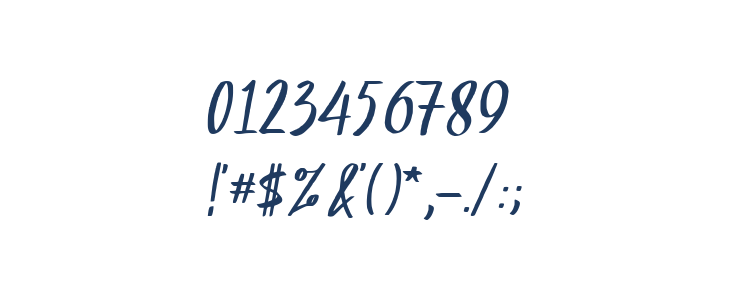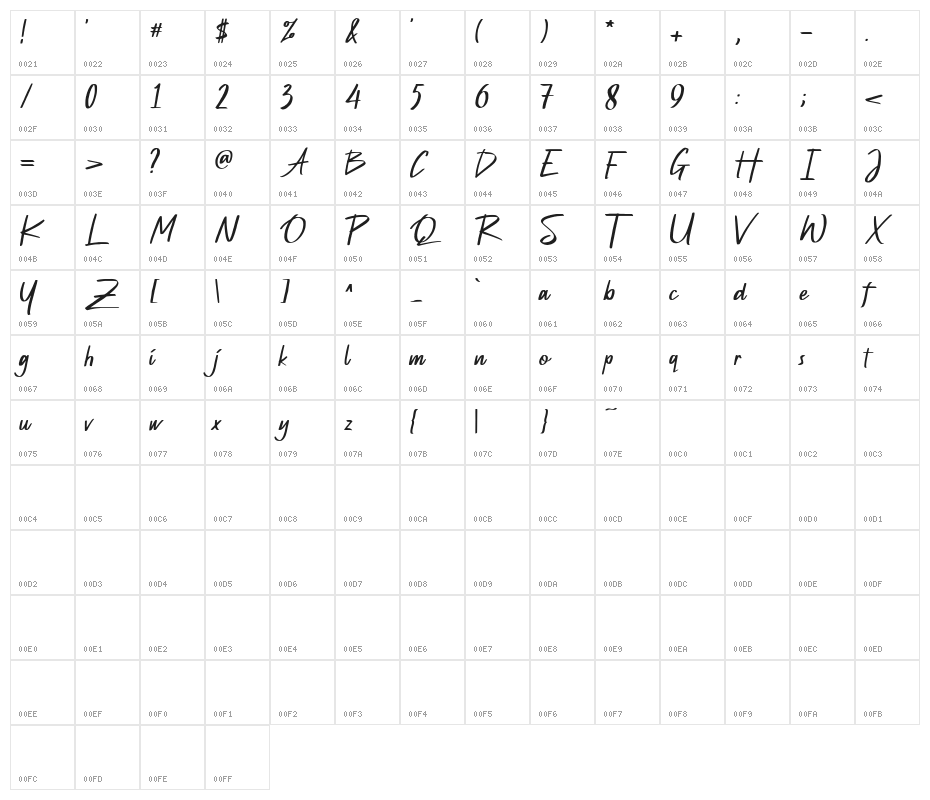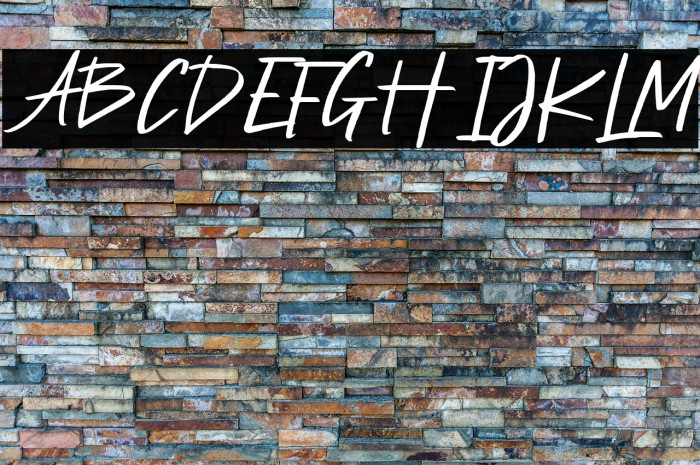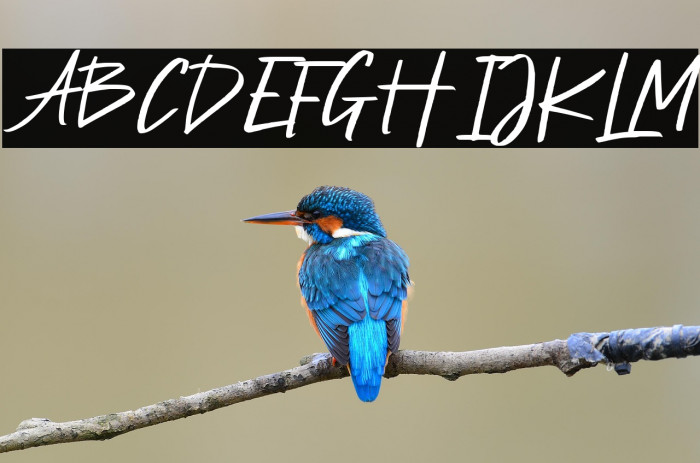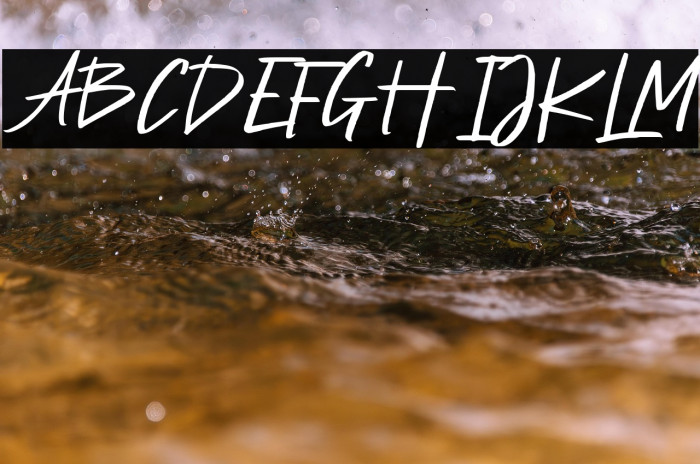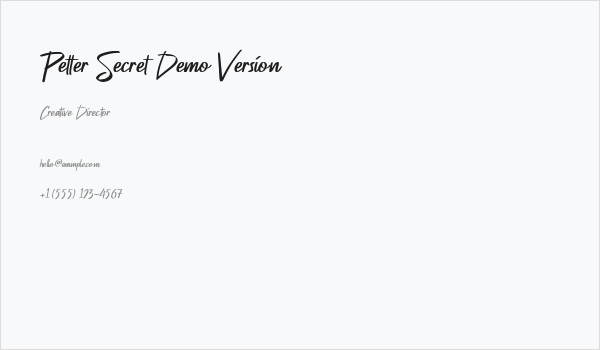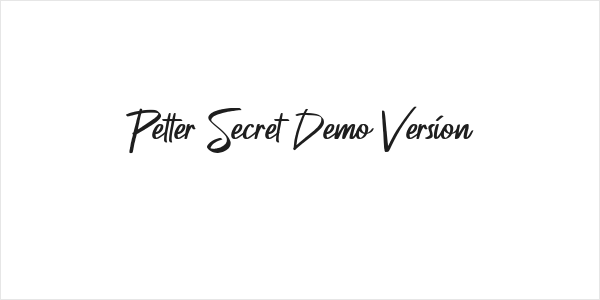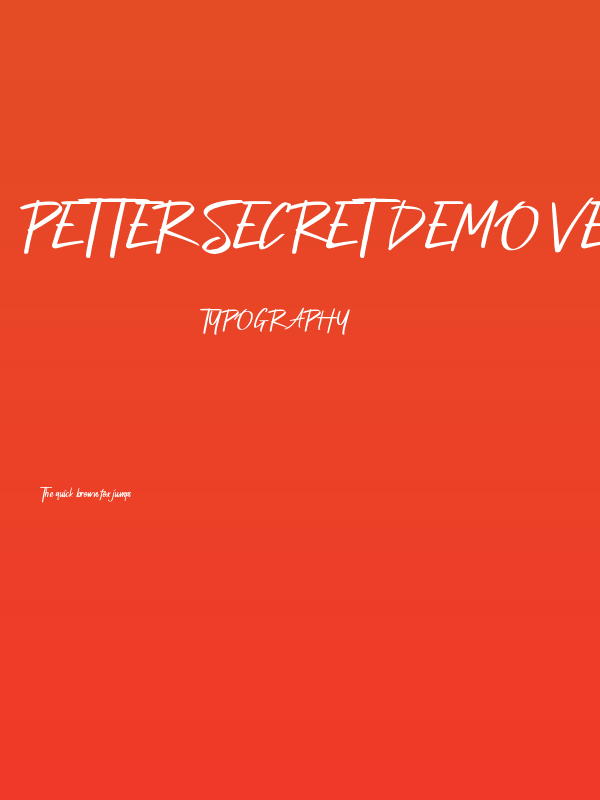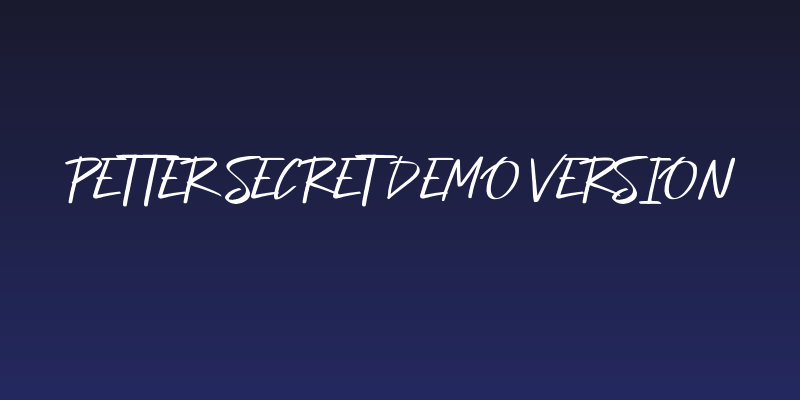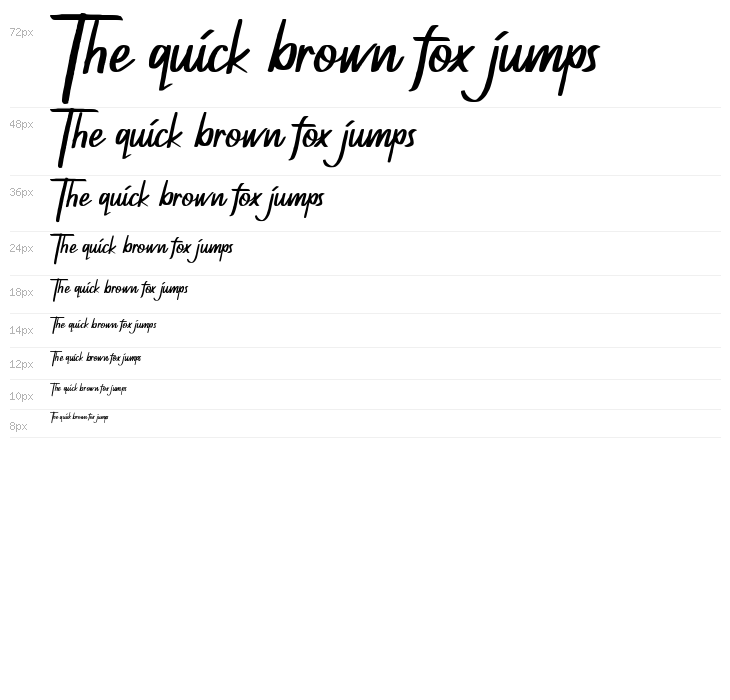
Petter Secret Demo Version Font
Petter Secret Demo Version Description
This font features a dynamic and expressive handwritten style, characterized by its fluid and slightly slanted letterforms. The uppercase letters are bold and elongated, giving a sense of movement and energy, while the lowercase letters maintain a consistent flow with a slightly more compact appearance. The numerals are clear and legible, matching the overall style of the alphabet. Special characters are included, maintaining the same lively and artistic flair. This font is ideal for projects that require a personal touch or a creative edge, such as invitations, posters, or branding materials. Its unique style makes it stand out, while still being versatile enough for various applications.
| Proposed Projects | Ideal for invitations, posters, branding materials, and creative projects. |